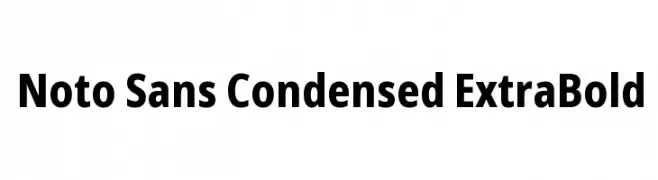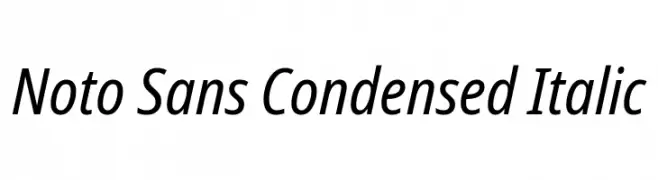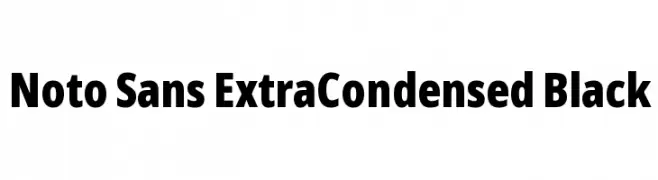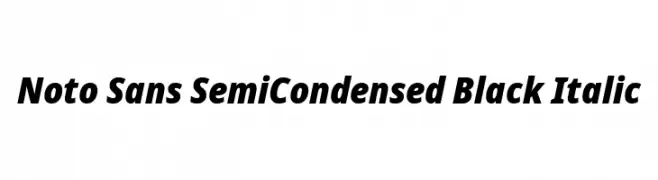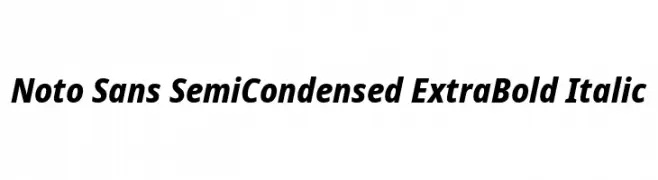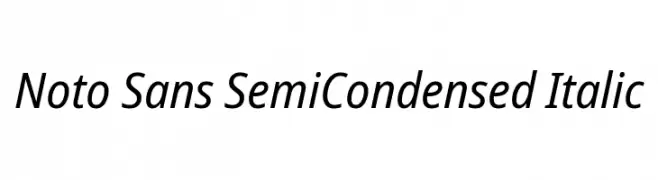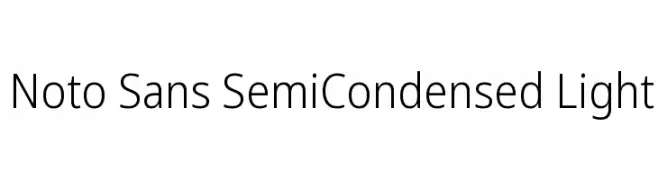
A modern, condensed sans-serif font with an italic style.
A clean, modern sans-serif font with a light weight and geometric precision.
A modern, extra bold, semi-condensed sans-serif font with italic styling.
A modern, semi-condensed sans-serif italic typeface with clean lines and balanced proportions.
A modern, bold, and condensed sans-serif typeface with excellent readability.
A bold, semi-condensed italic sans-serif font with a modern and dynamic style.
A modern, light, semi-condensed sans-serif font with medium contrast and normal spacing.
Bold, extra-condensed sans-serif font with a strong, modern appearance.
A modern, extra bold italic sans-serif font with a dynamic and assertive style.
A bold, condensed sans-serif typeface with a modern and clean design.